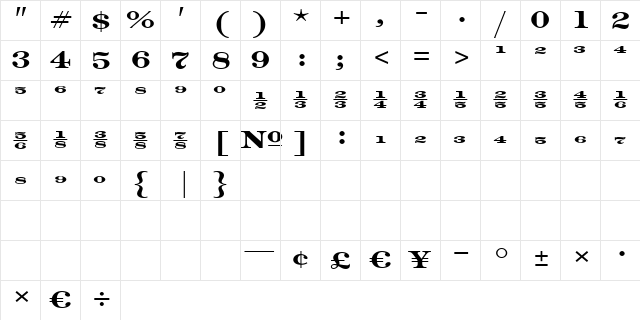
Numbers Depot Regular
Design Context for Numbers Depot Typeface
Numbers Depot offers clean, dependable letterforms without strong stylistic allegiance, making it a practical choice for designers who need flexibility.
Pro Tip: Use Numbers Depot in both headline and body roles to test its range before committing to a single application.